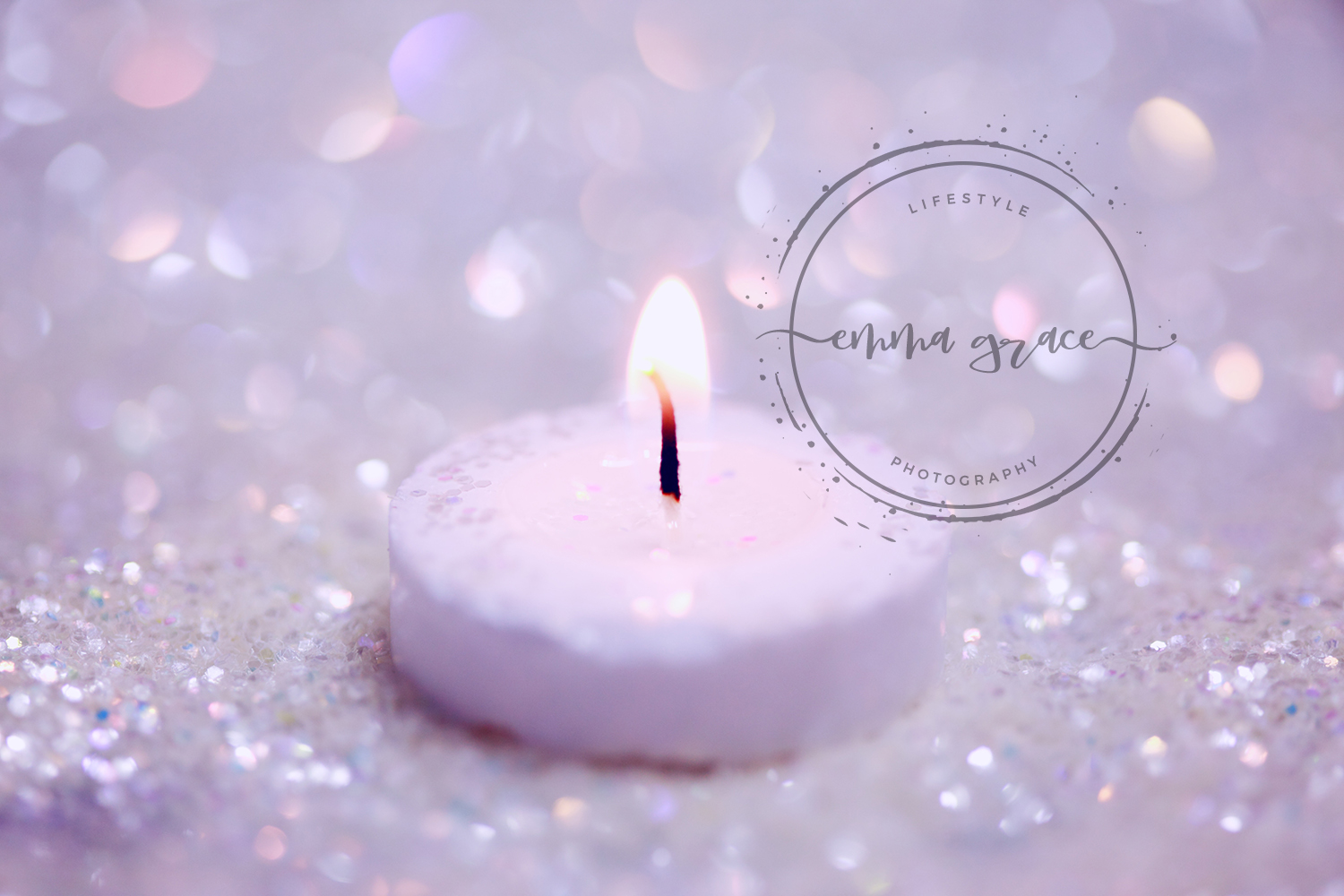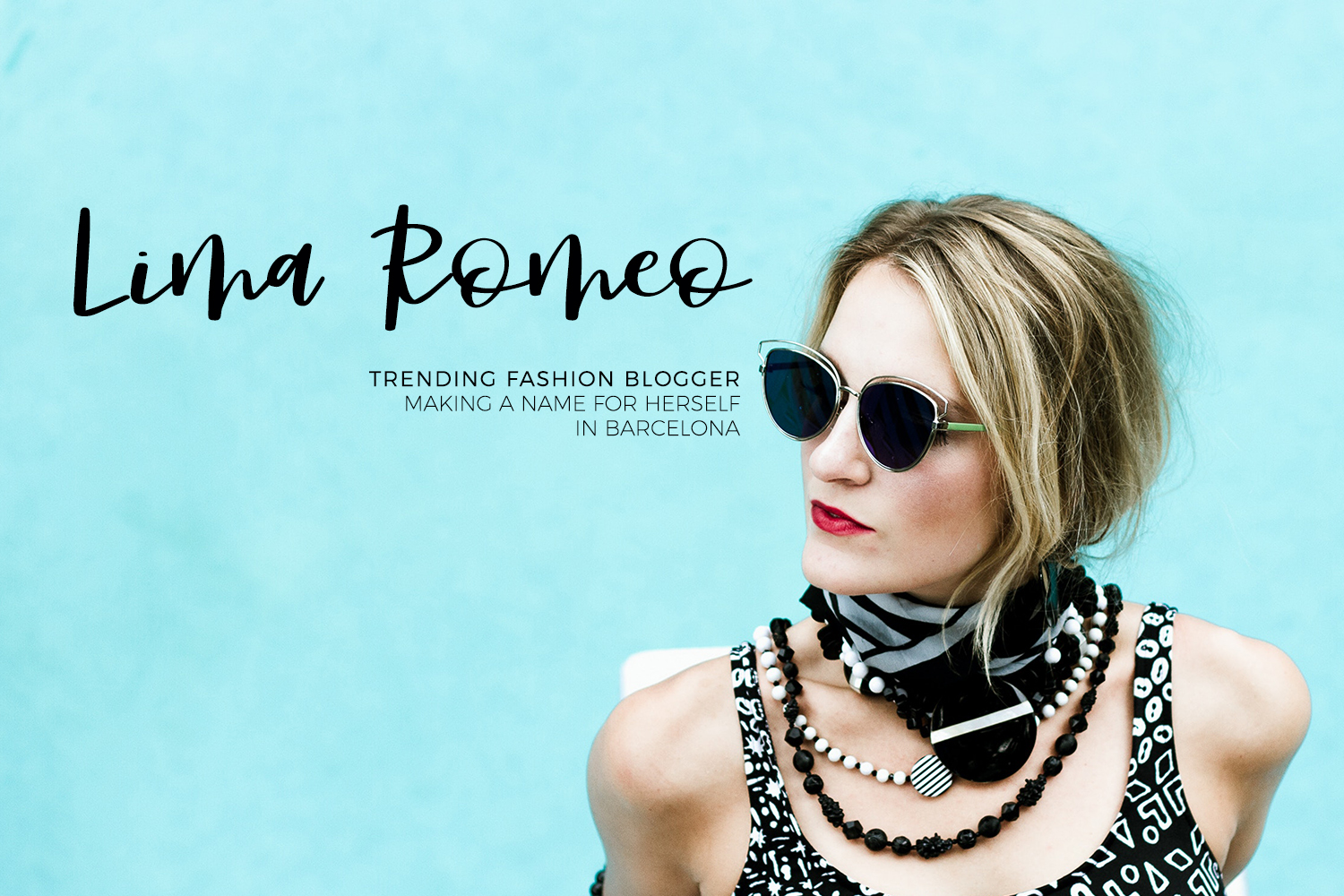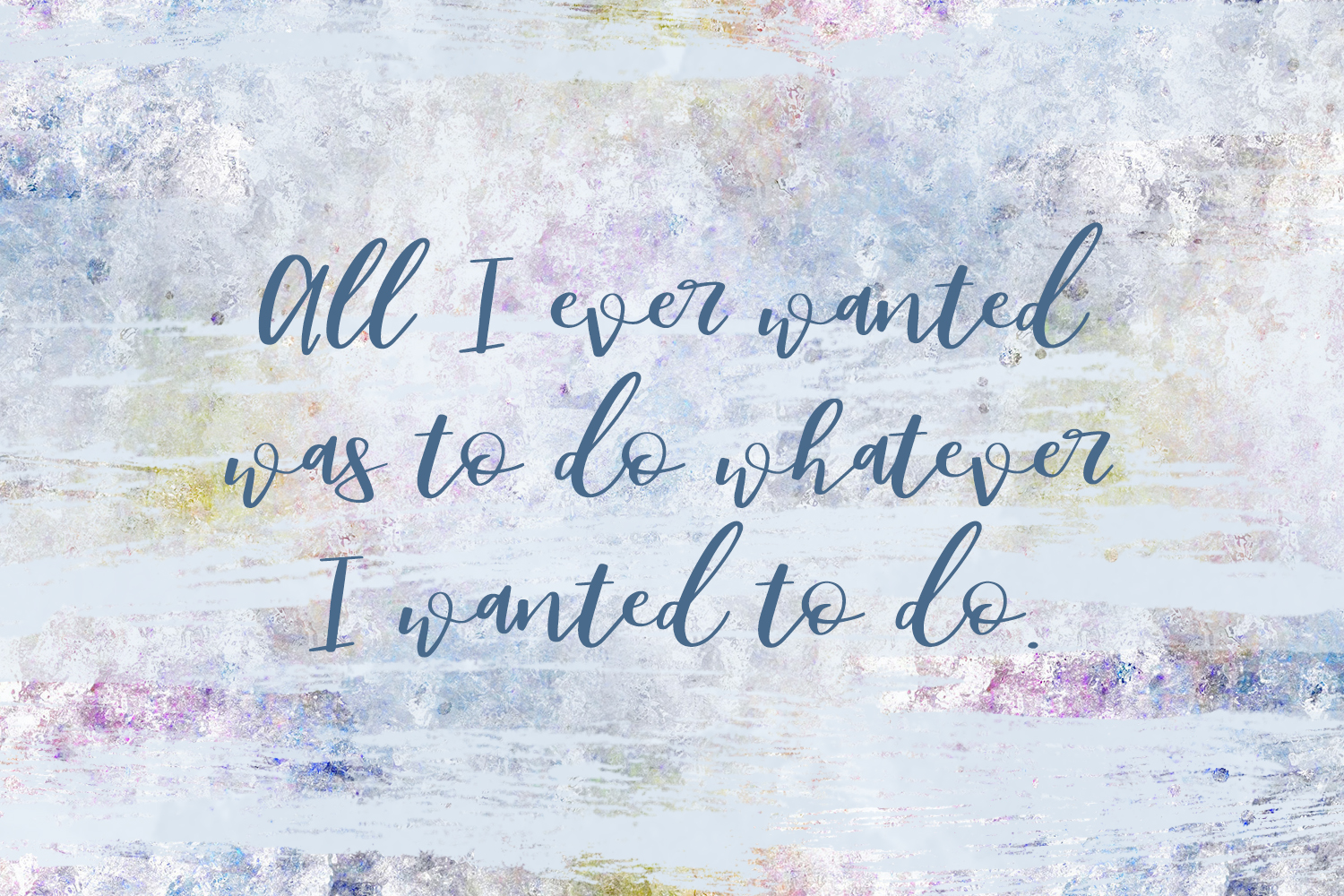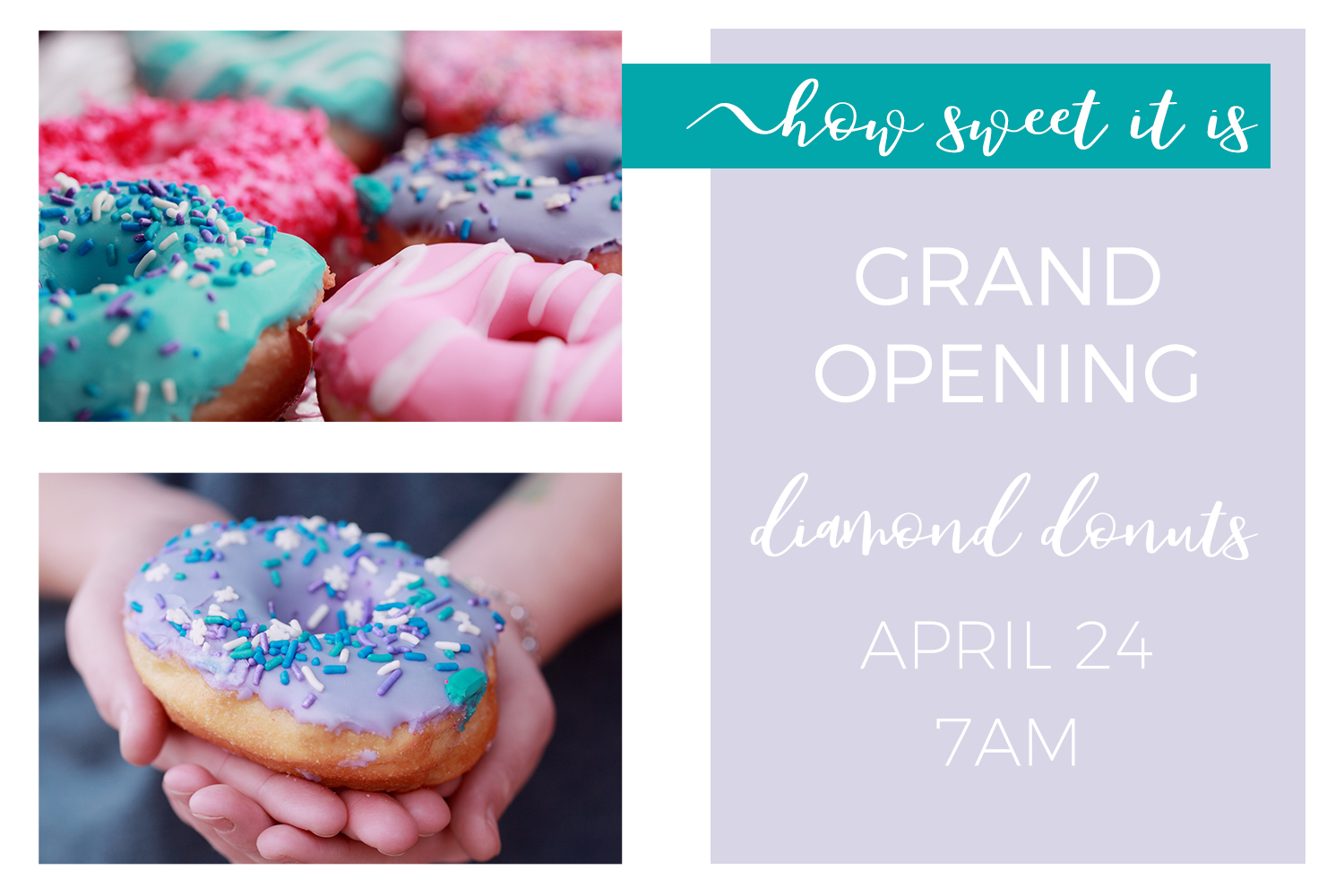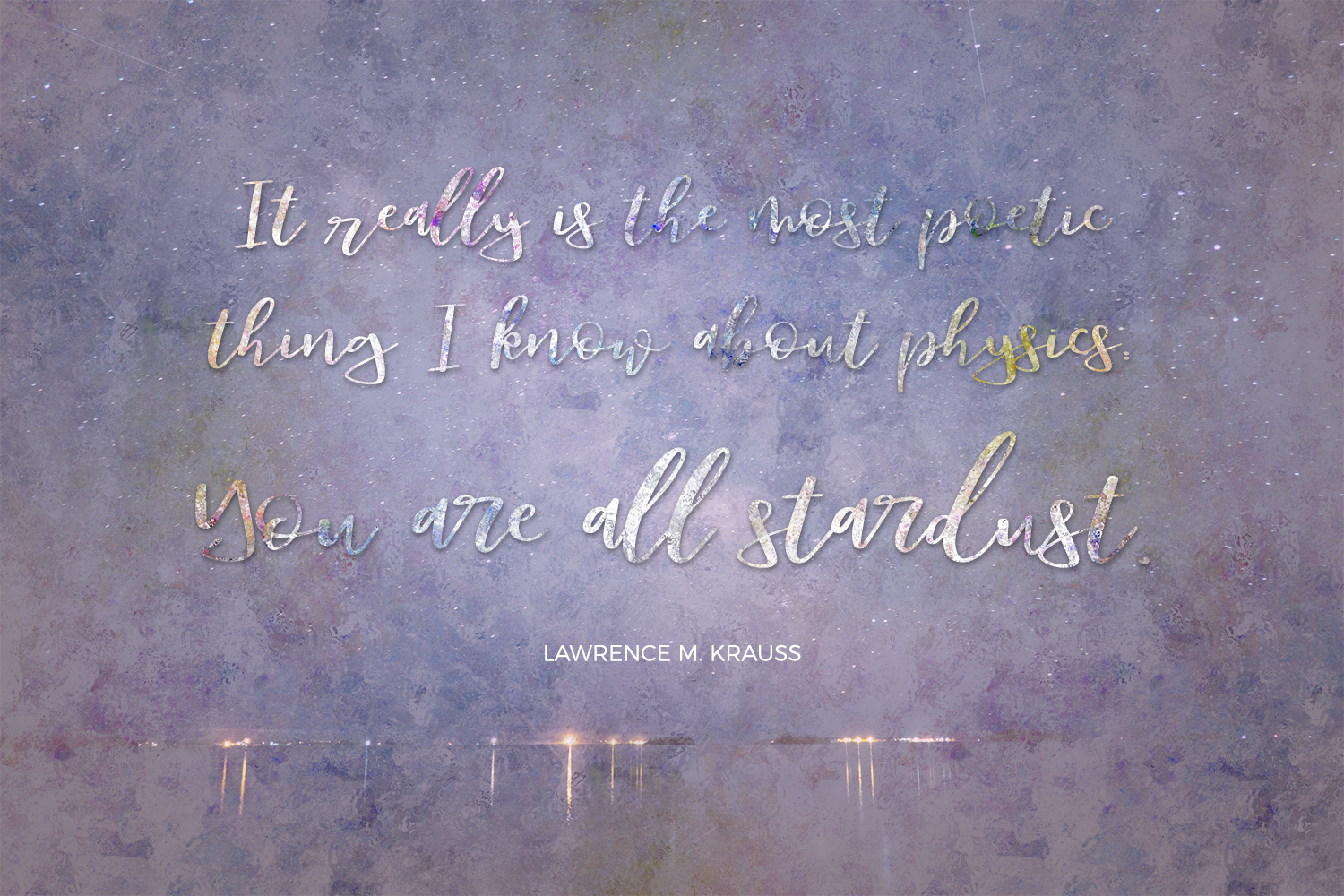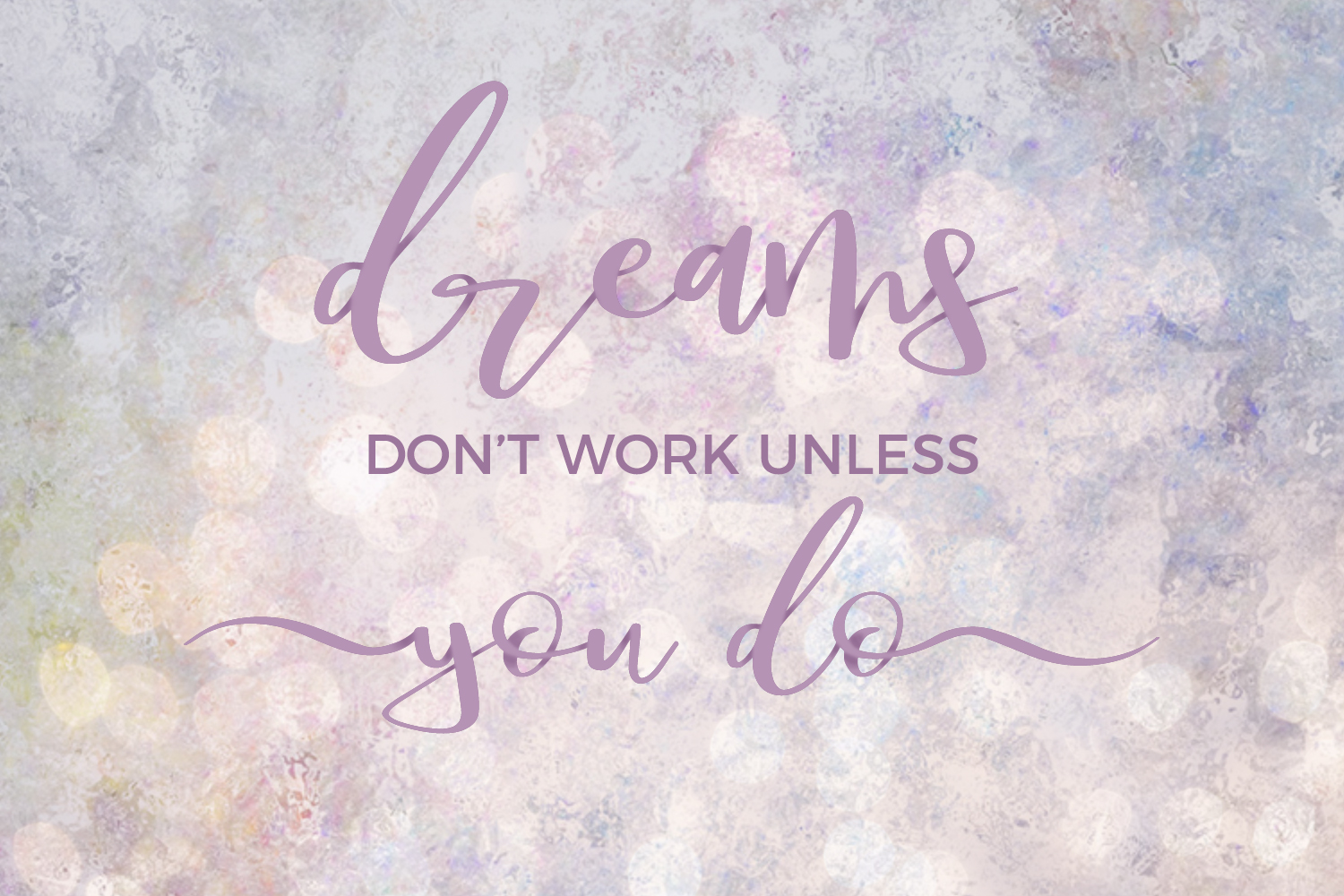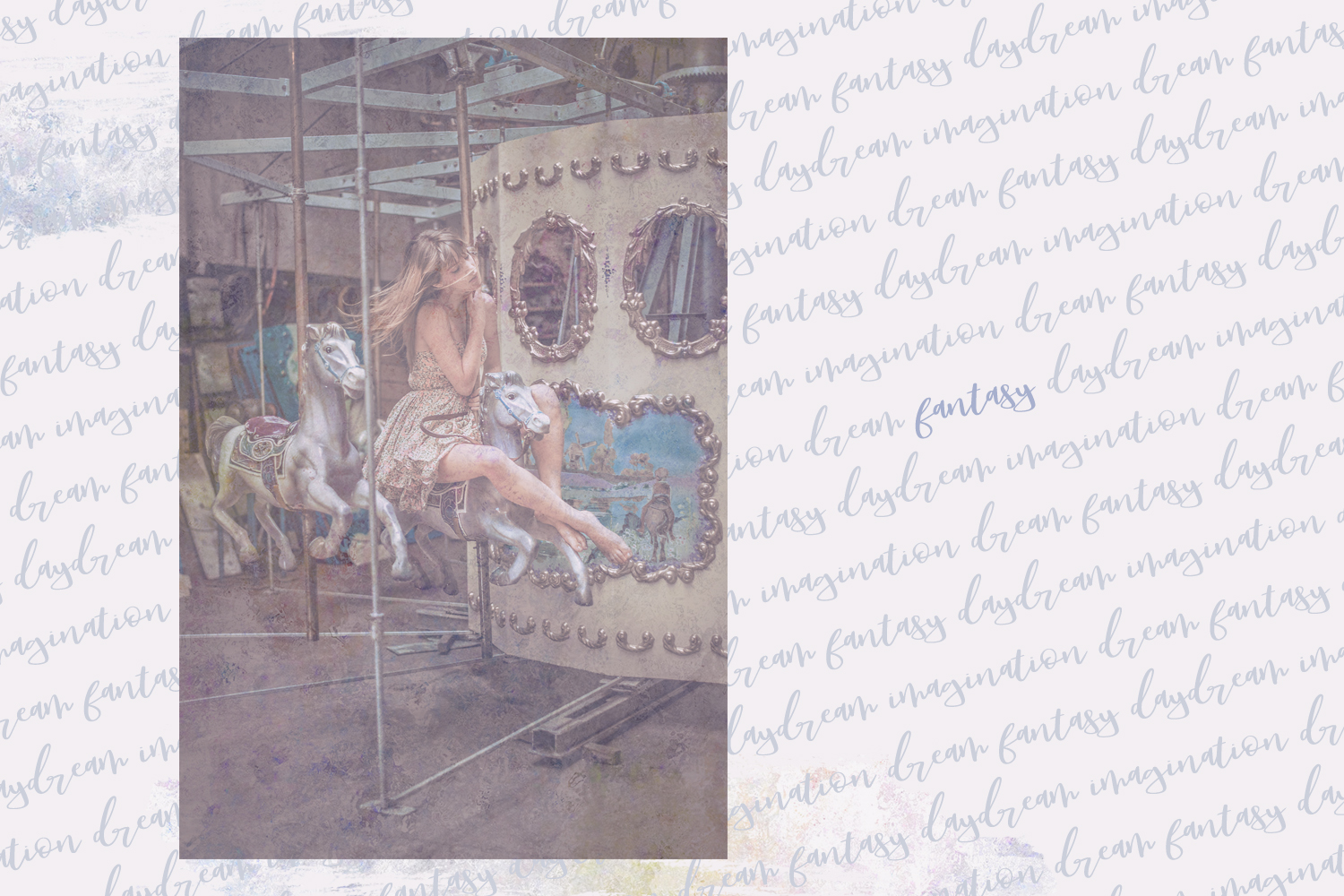
Dream Font
About Dream Font
“All I ever wanted to do was whatever I wanted. Dream is a bounce calligraphy font, featuring two different swash options, with both left and right swashes, and a few ligatures. It has an up & down baseline, making it visually interesting, and perfect for modern branding, invitations, or quote graphics.”